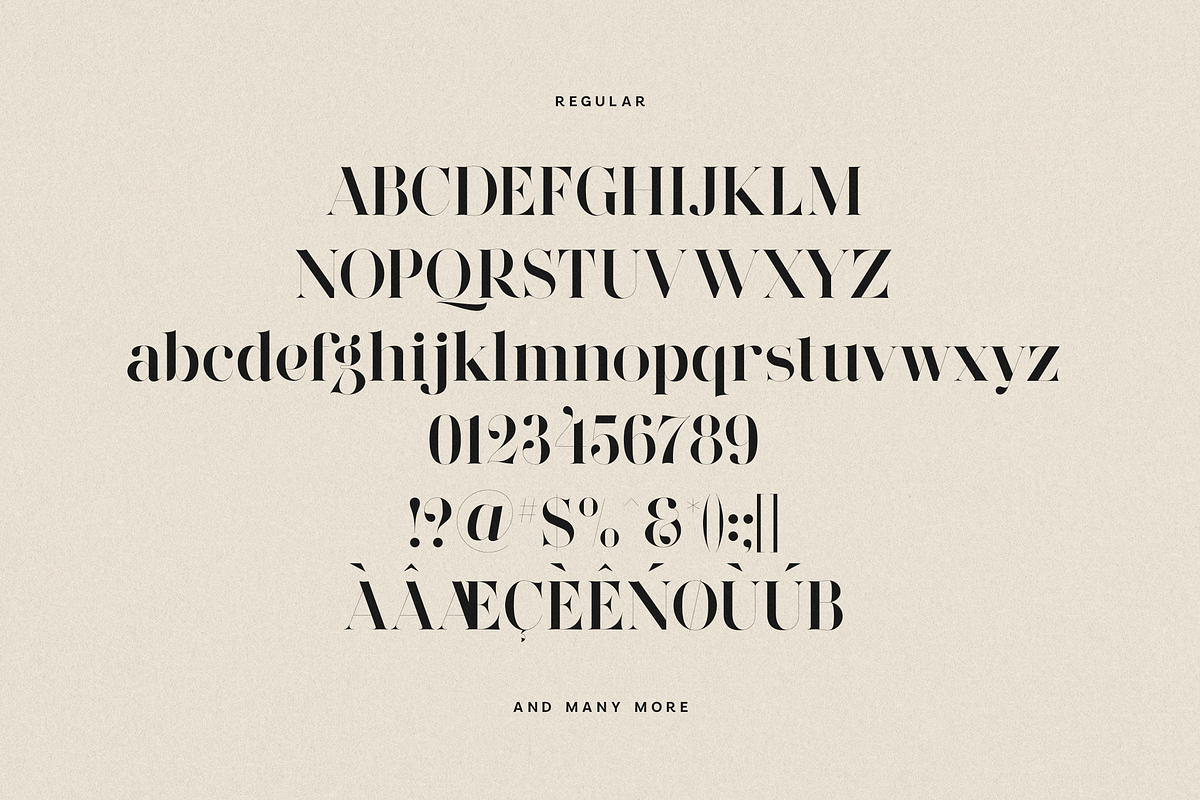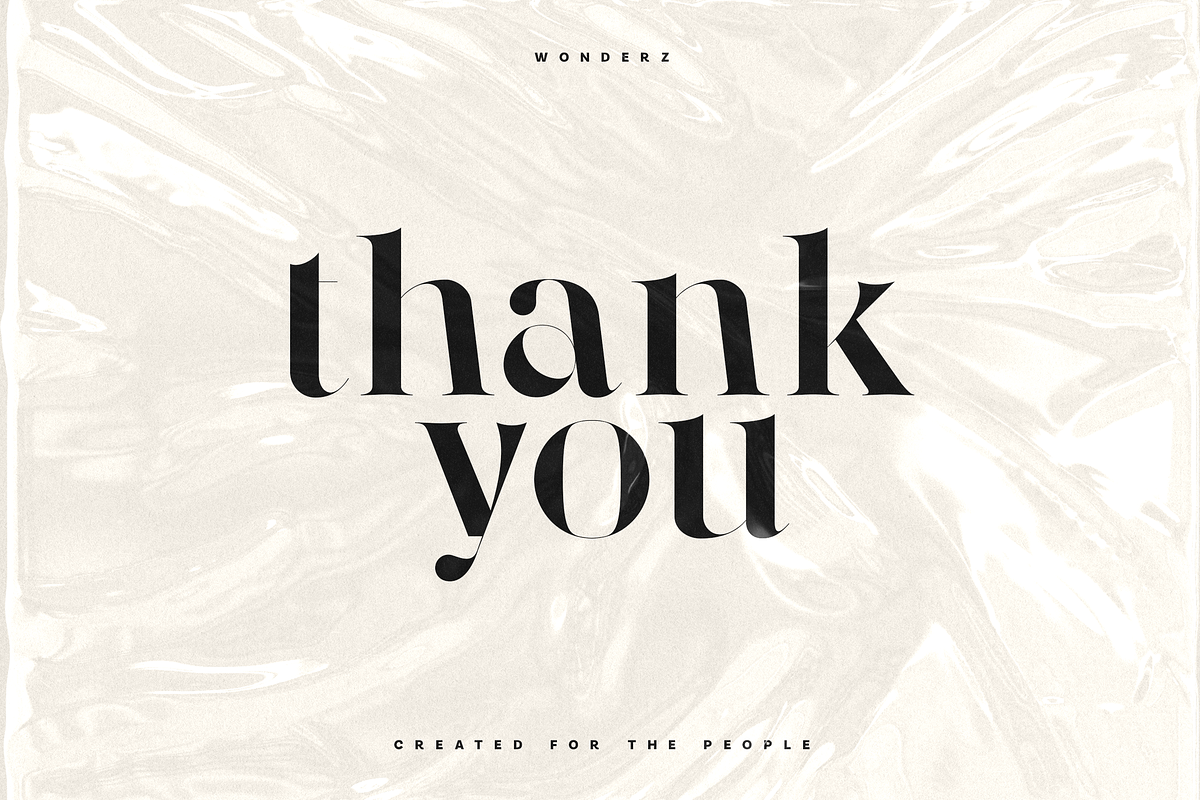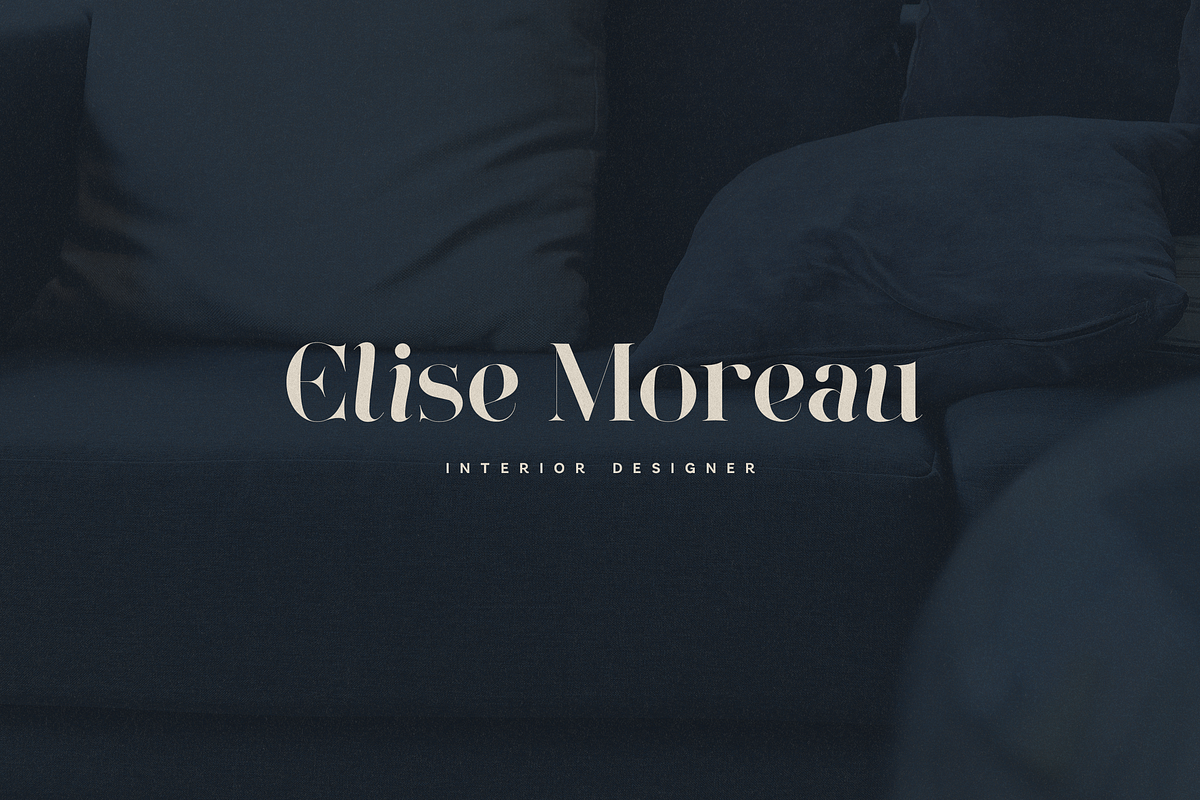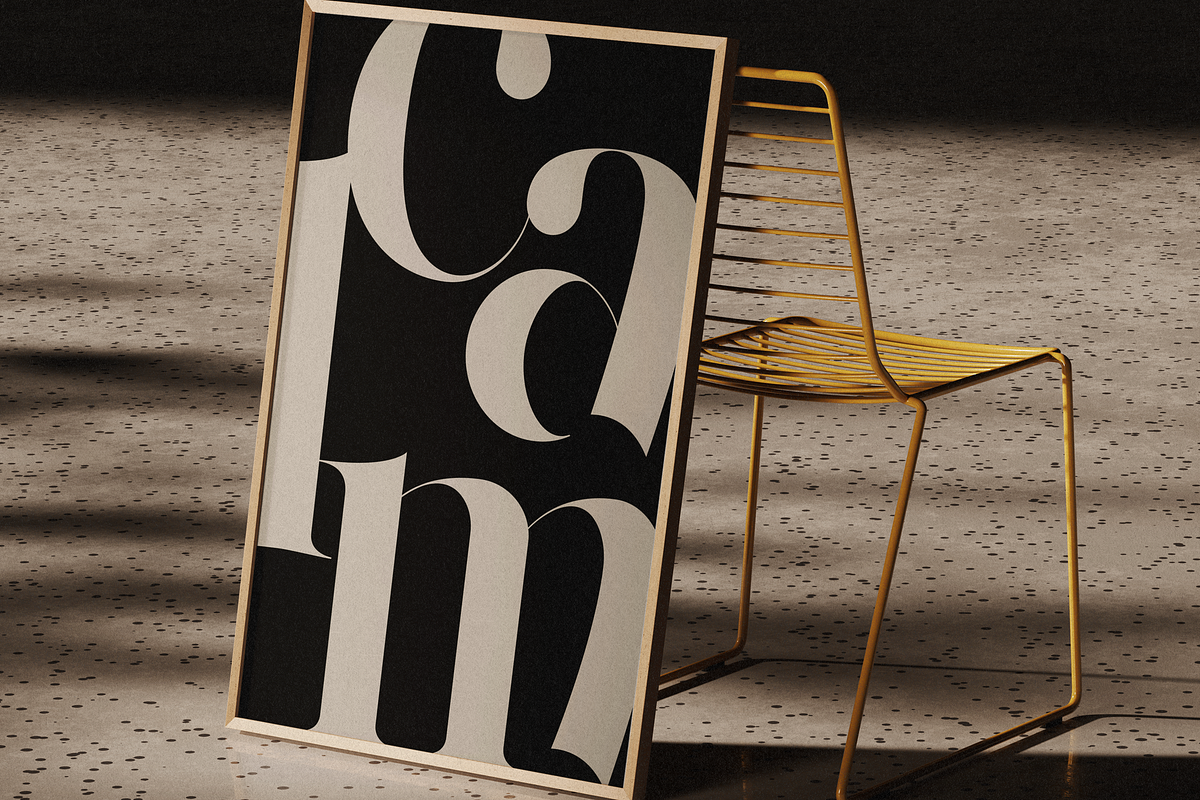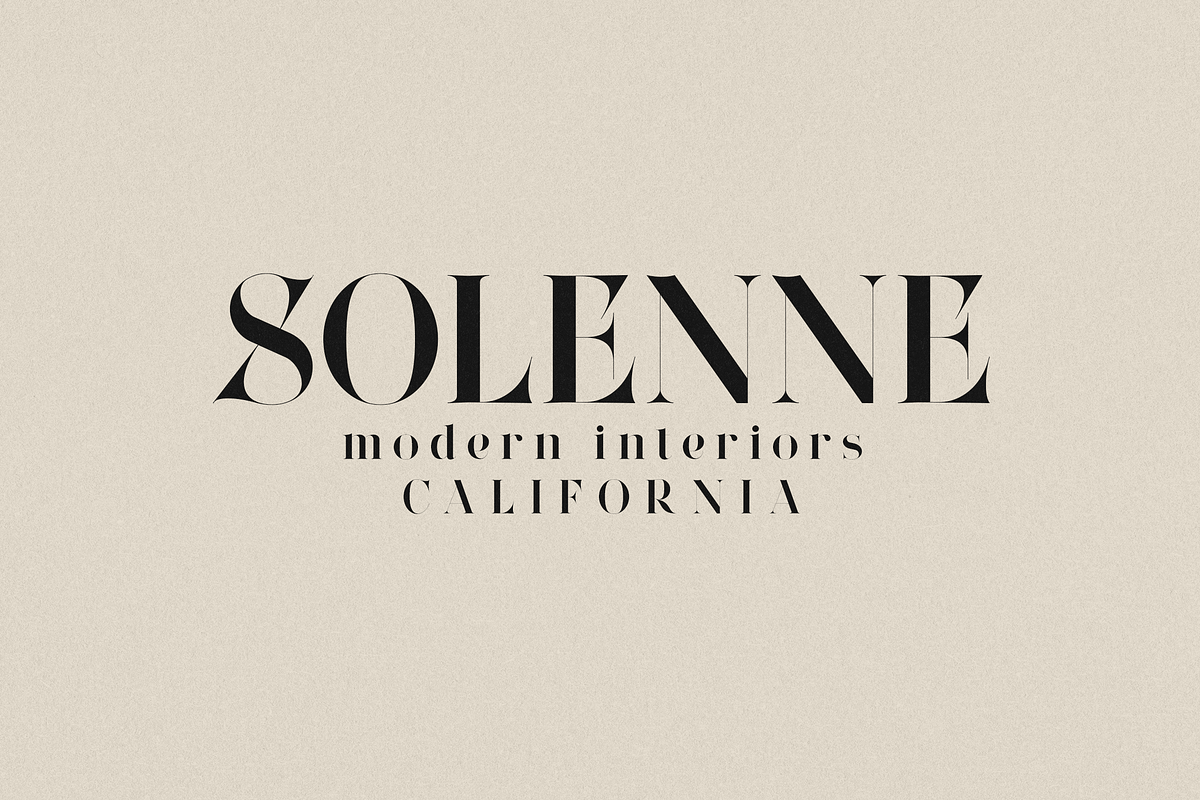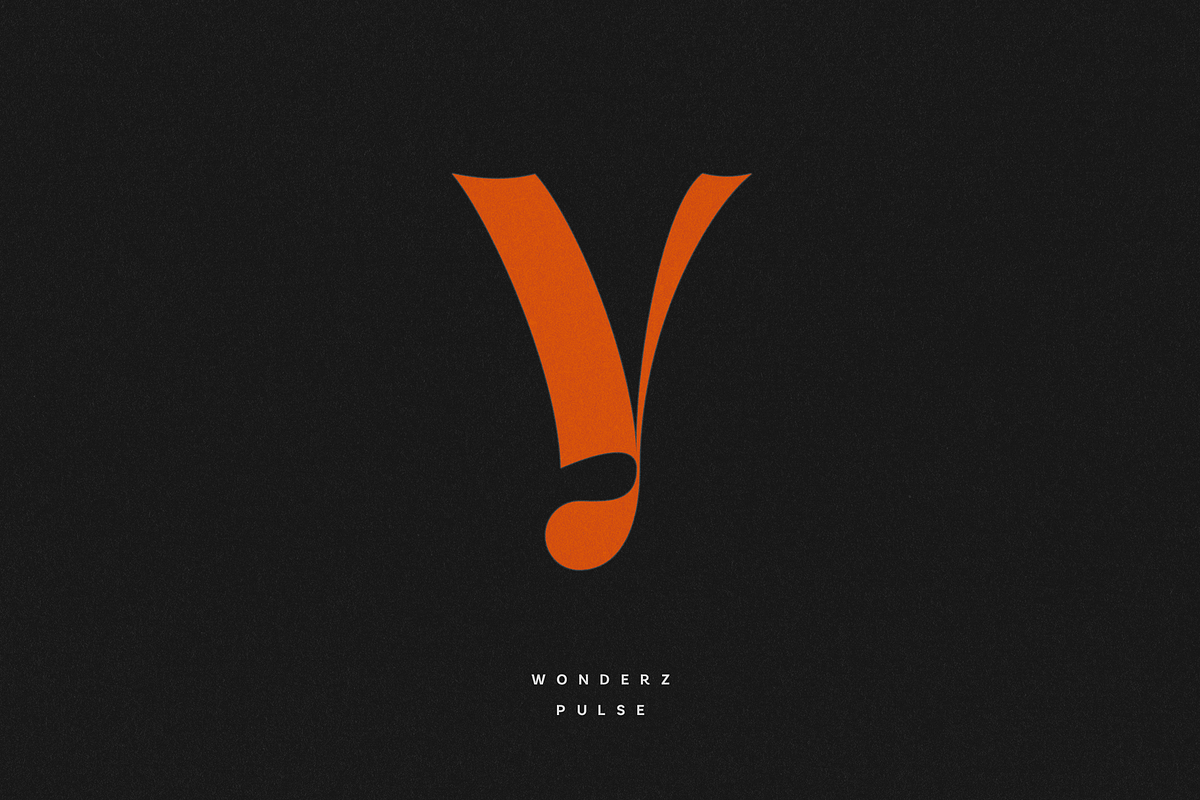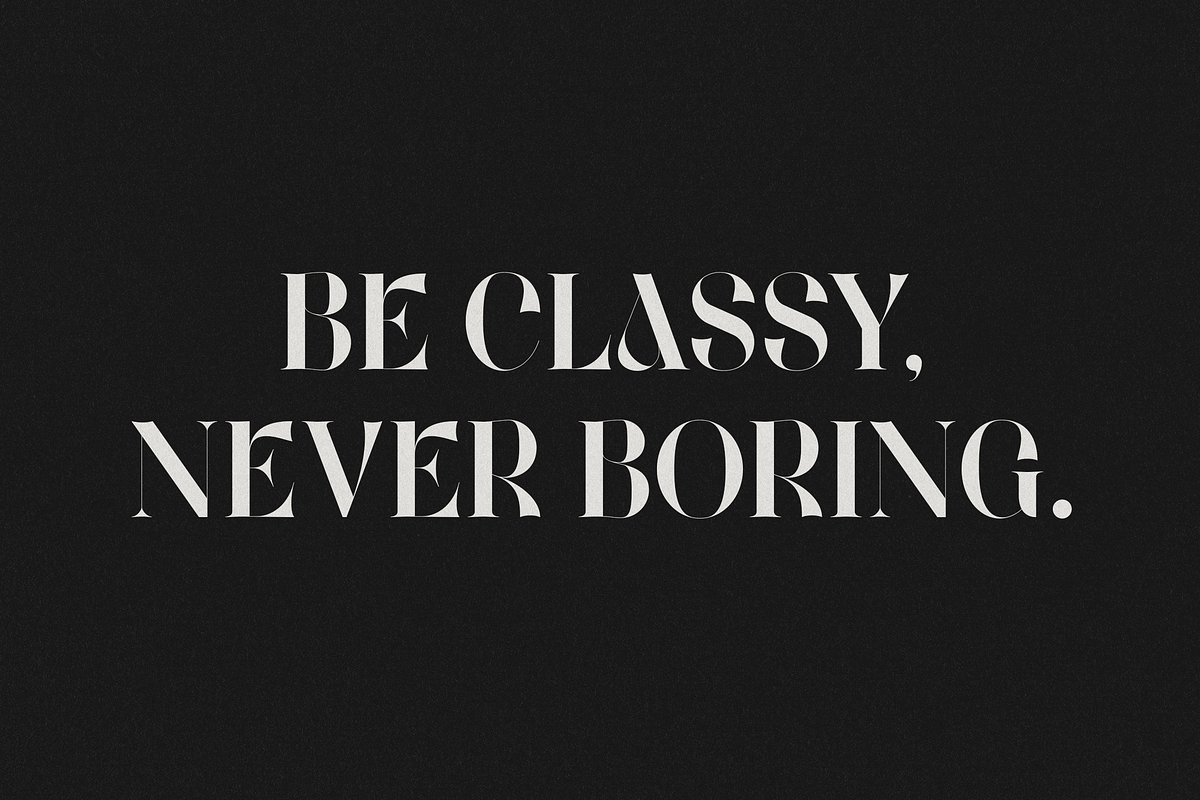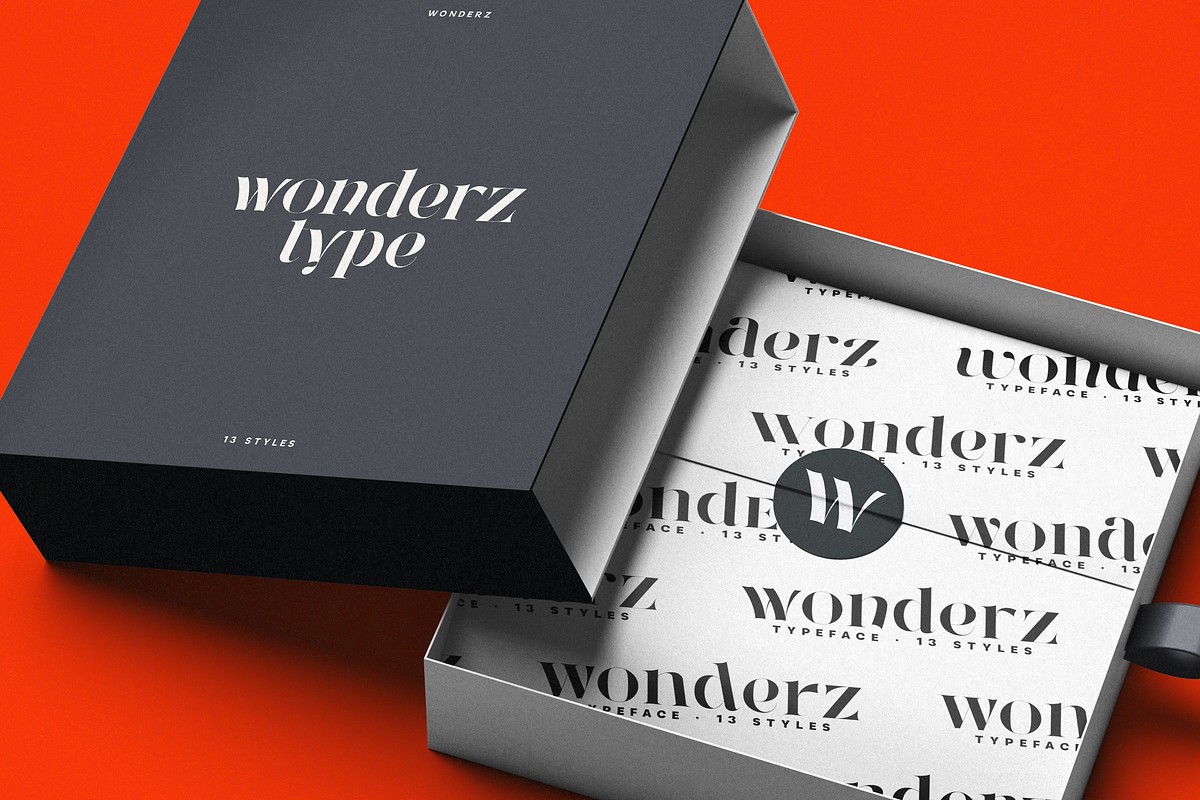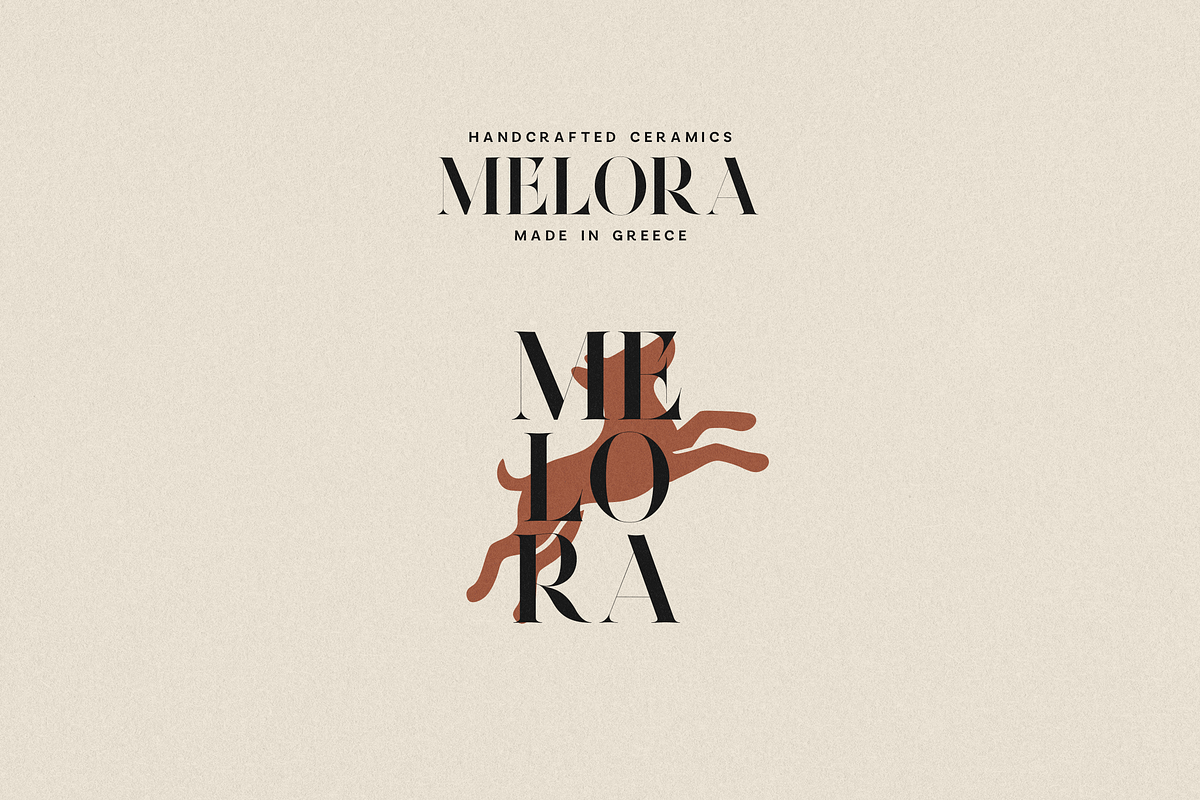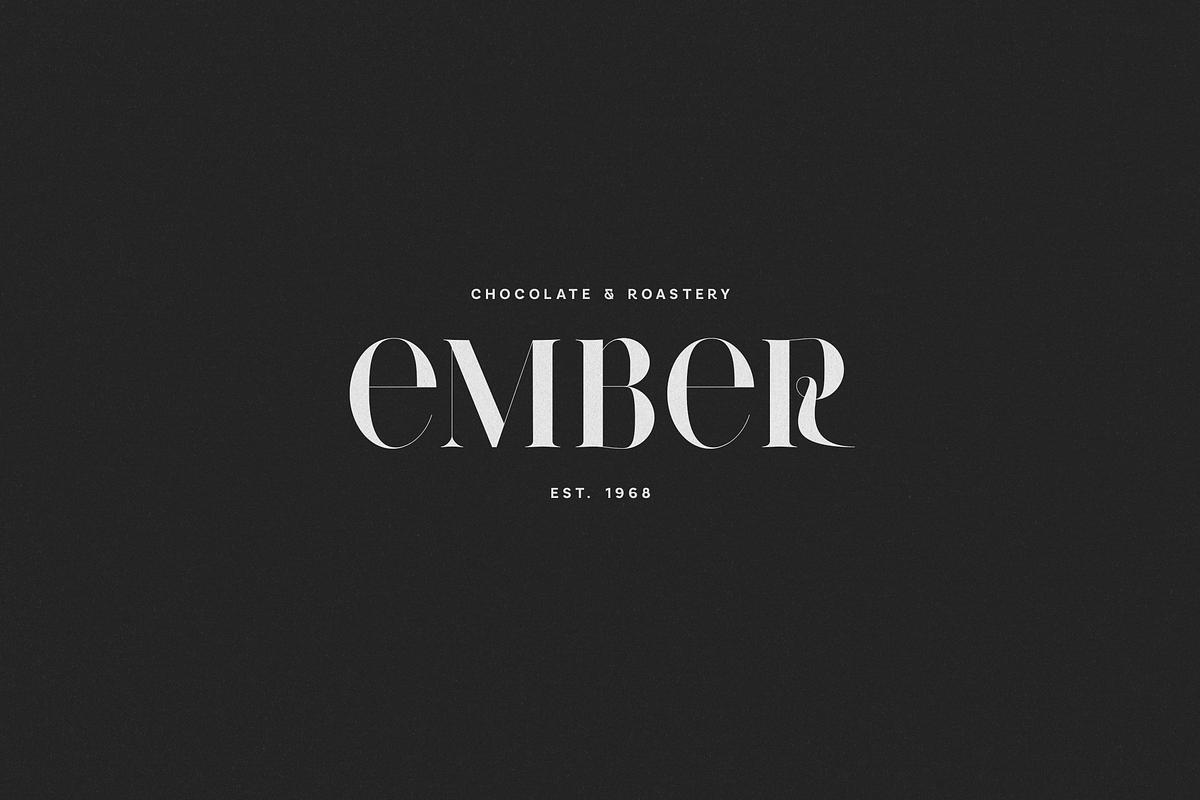
Wonderz Typeface — A Modern Serif
Wonderz Typeface — A Modern Serif with Timeless Charm
Wonderz is a refined serif typeface designed for those who seek elegance with a contemporary edge. Featuring 12 distinctive styles — Edge, Ascend, Avant, Echo, Elite, Flair, Flow, Grace, Prime, Pulse, Regular, and Vogue — Wonderz offers remarkable versatility for branding, packaging, editorial design, and digital projects.
Each style brings a unique personality, from the sharp sophistication of Edge to the fluid motion of Flow, and the bold expressiveness of Vogue. With its high contrast strokes, elegant curves, and artistic letterforms, Wonderz blends modern fashion aesthetics with classic typographic craftsmanship.
Perfect for luxury brands, creative studios, fashion houses, interior designers, and lifestyle publications, Wonderz enhances every design with poise and distinction. Its 12-style family ensures creative flexibility across both display and text applications.
- 12 font styles: Edge, Ascend, Avant, Echo, Elite, Flair, Flow, Grace, Prime, Pulse, Regular, Vogue
- Elegant high-contrast serif design
- Perfect for logos, headlines, editorial layouts, and brand identities
- Supports 87 languages
Be classy, never boring — with Wonderz Typeface.